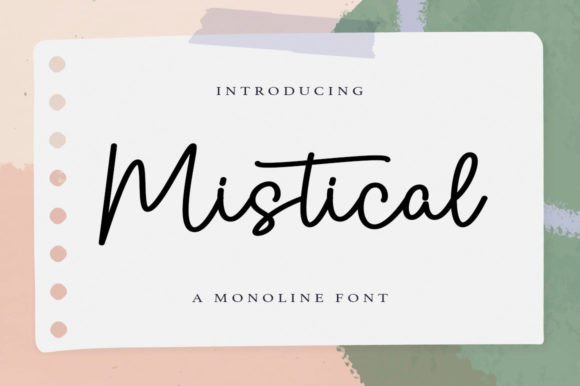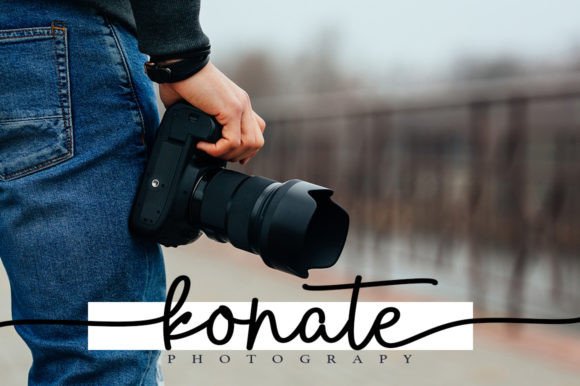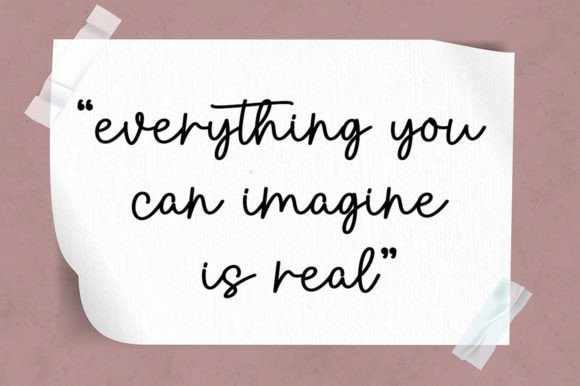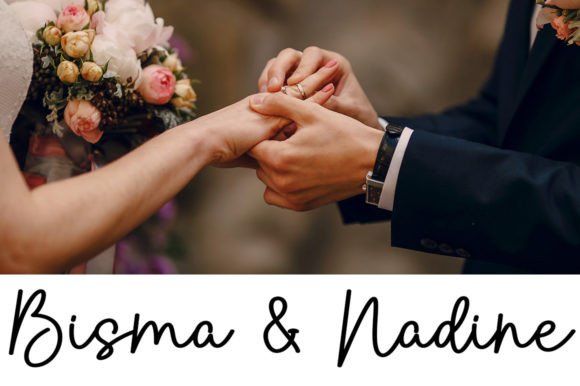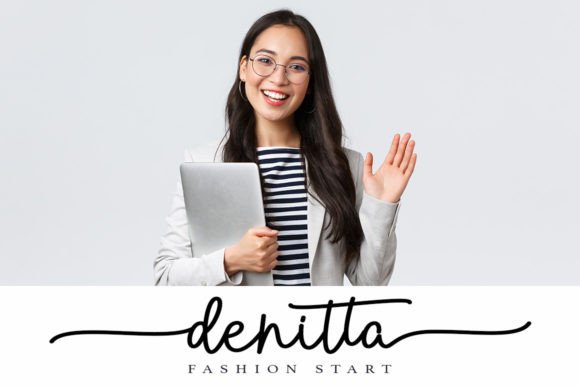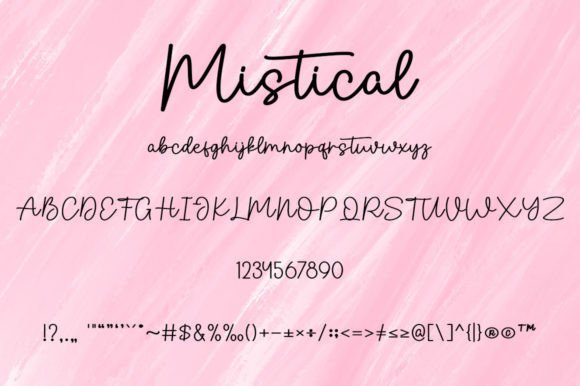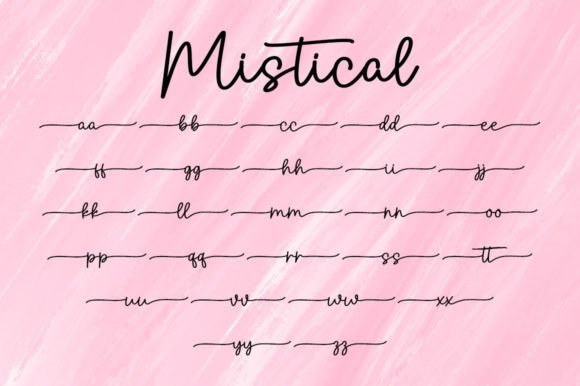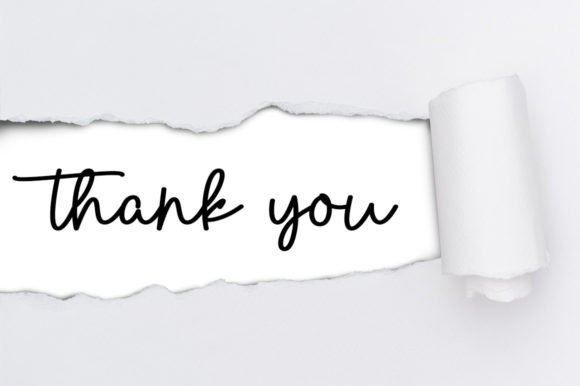
Mistical Font
About Mistical Font
Mistical emerges as an epitome of elegance in the realm of script fonts. Its design strikes a delicate balance, steering clear of extremes by not being overly thin or excessively bold. Instead, it presents a harmonious blend, offering a varied and well-balanced aesthetic that elevates the visual appeal of your projects.
One of the key strengths of Mistical lies in its versatility. The font’s ability to adapt seamlessly to diverse design projects is a testament to its thoughtful craftsmanship. Whether you’re working on branding materials, invitations, or any creative endeavor, Mistical’s versatile nature makes it a reliable choice that can effortlessly enhance the beauty of your designs.
The font’s PUA encoding is a significant feature, providing easy access to a wide array of glyphs and swashes. This feature opens up a realm of creative possibilities, allowing designers to personalize and customize their projects with intricate details. Mistical’s PUA encoding ensures that every designer, regardless of their skill level, can unlock the full potential of the font.
Mistical’s elegance extends beyond its aesthetic appeal. It is not merely a collection of characters; rather, it’s a tool that empowers designers to infuse a touch of sophistication into their creations. The clean lines and balanced strokes contribute to a refined look that can elevate the overall design of various applications.
The font’s timeless quality makes it suitable for projects that stand the test of time. Whether used in contemporary designs or classic layouts, Mistical retains its elegance, making it a valuable asset in a designer’s toolkit. Its adaptability ensures that it remains relevant in a variety of design contexts.
In essence, Mistical is more than just a font; it’s a design companion that adds an element of grace to your projects. Its elegant script, thoughtful balance, and PUA encoding make it a versatile and user-friendly choice for designers seeking a font that effortlessly enhances the beauty of their creative endeavors.